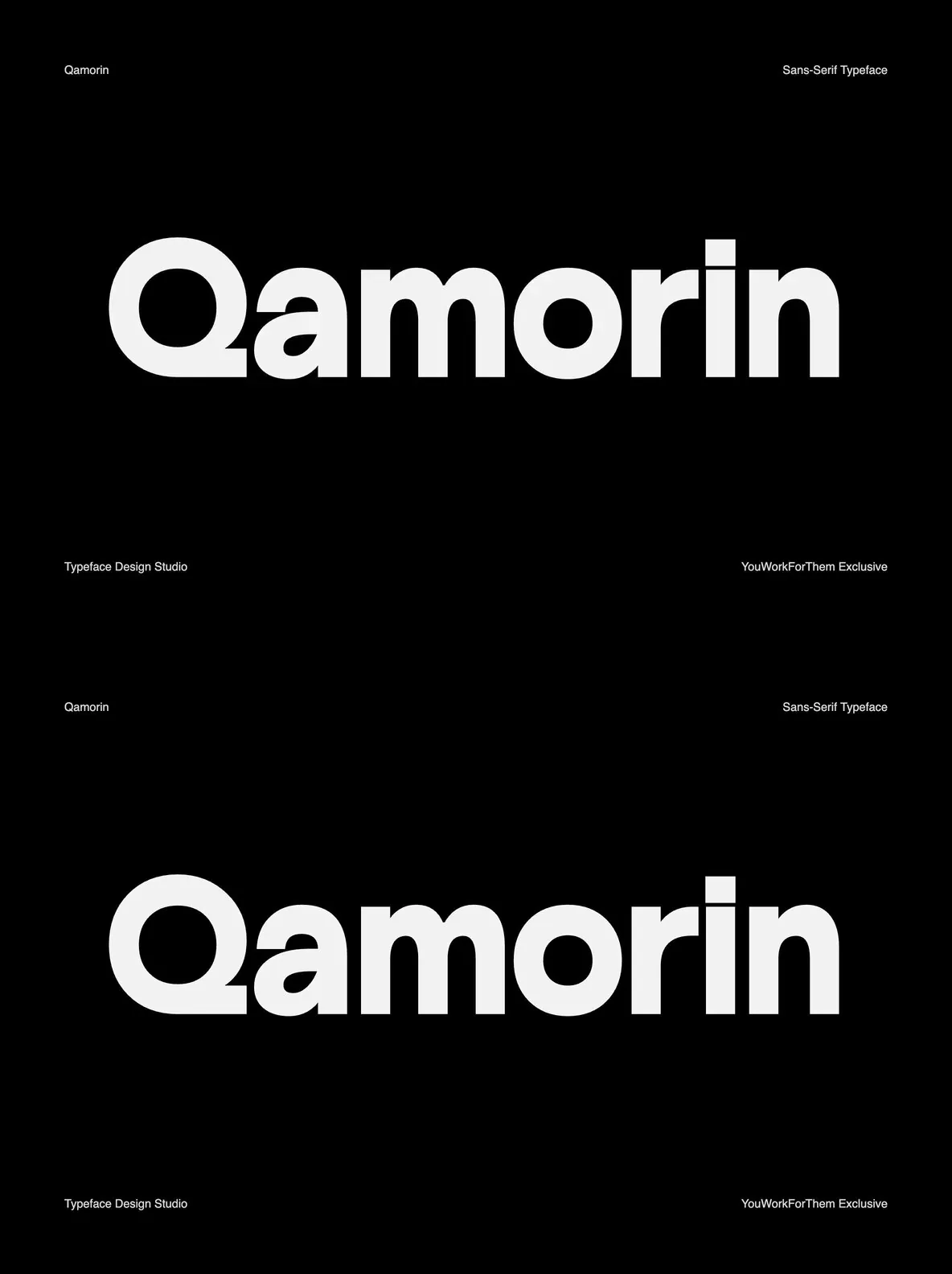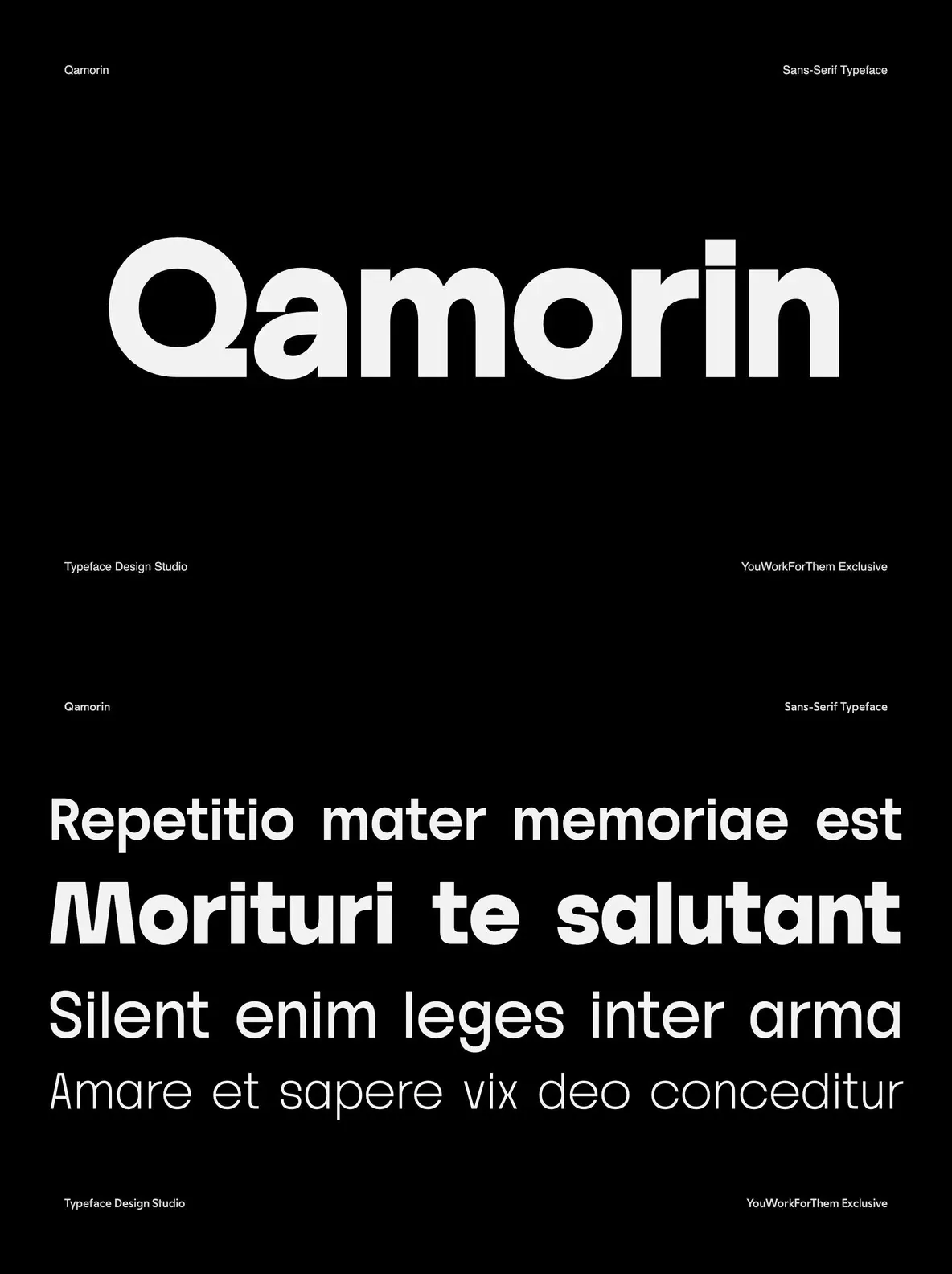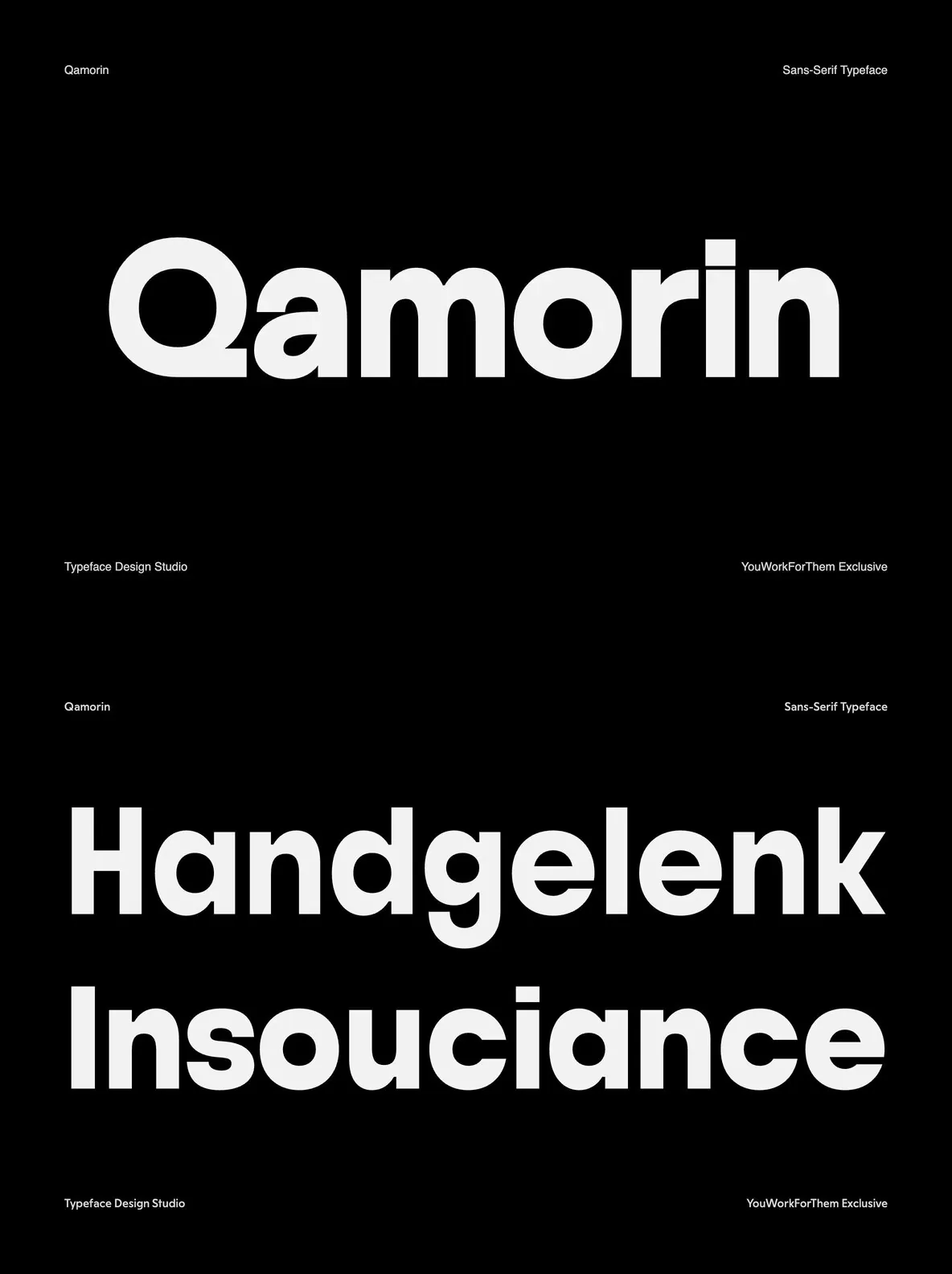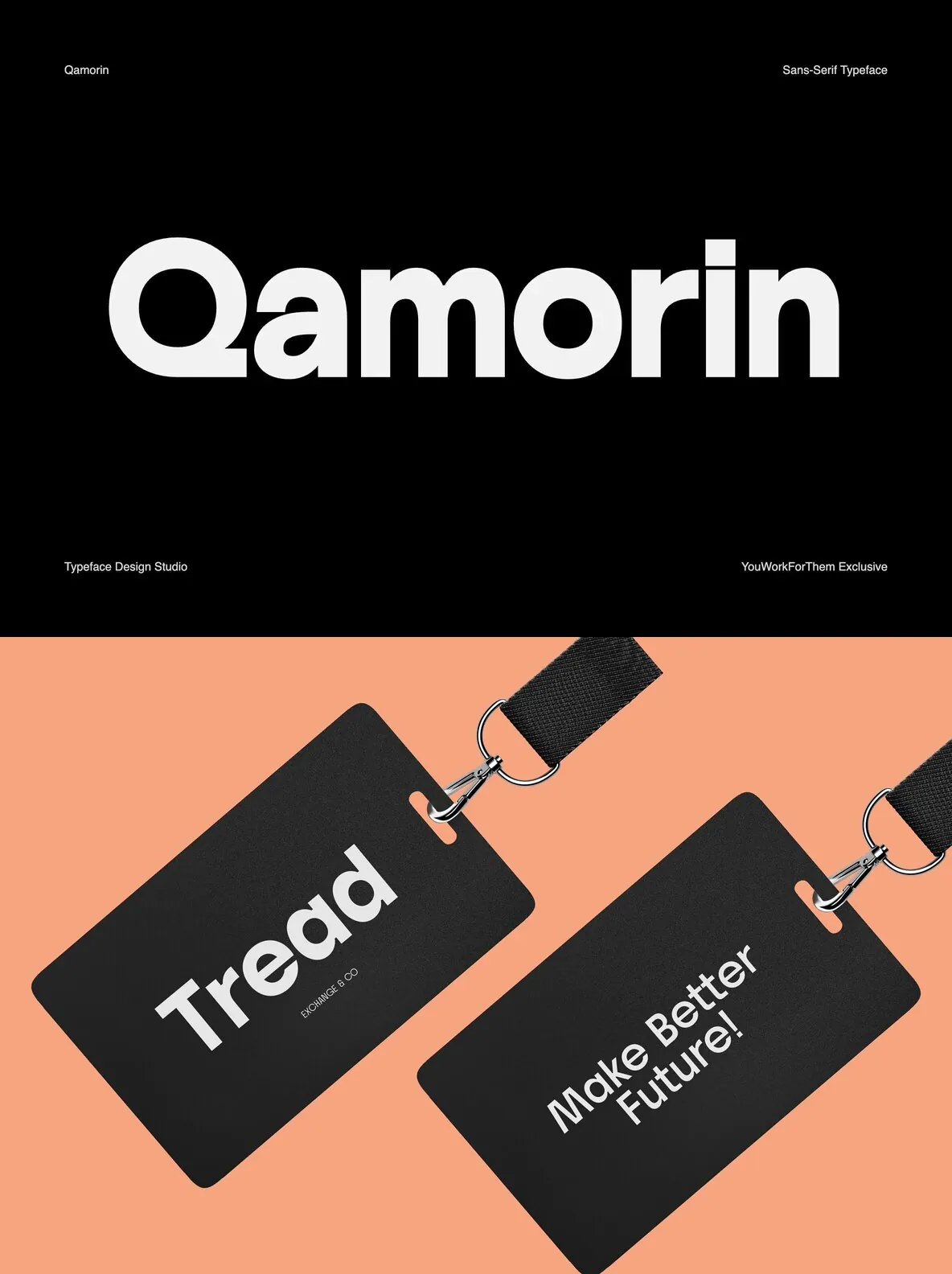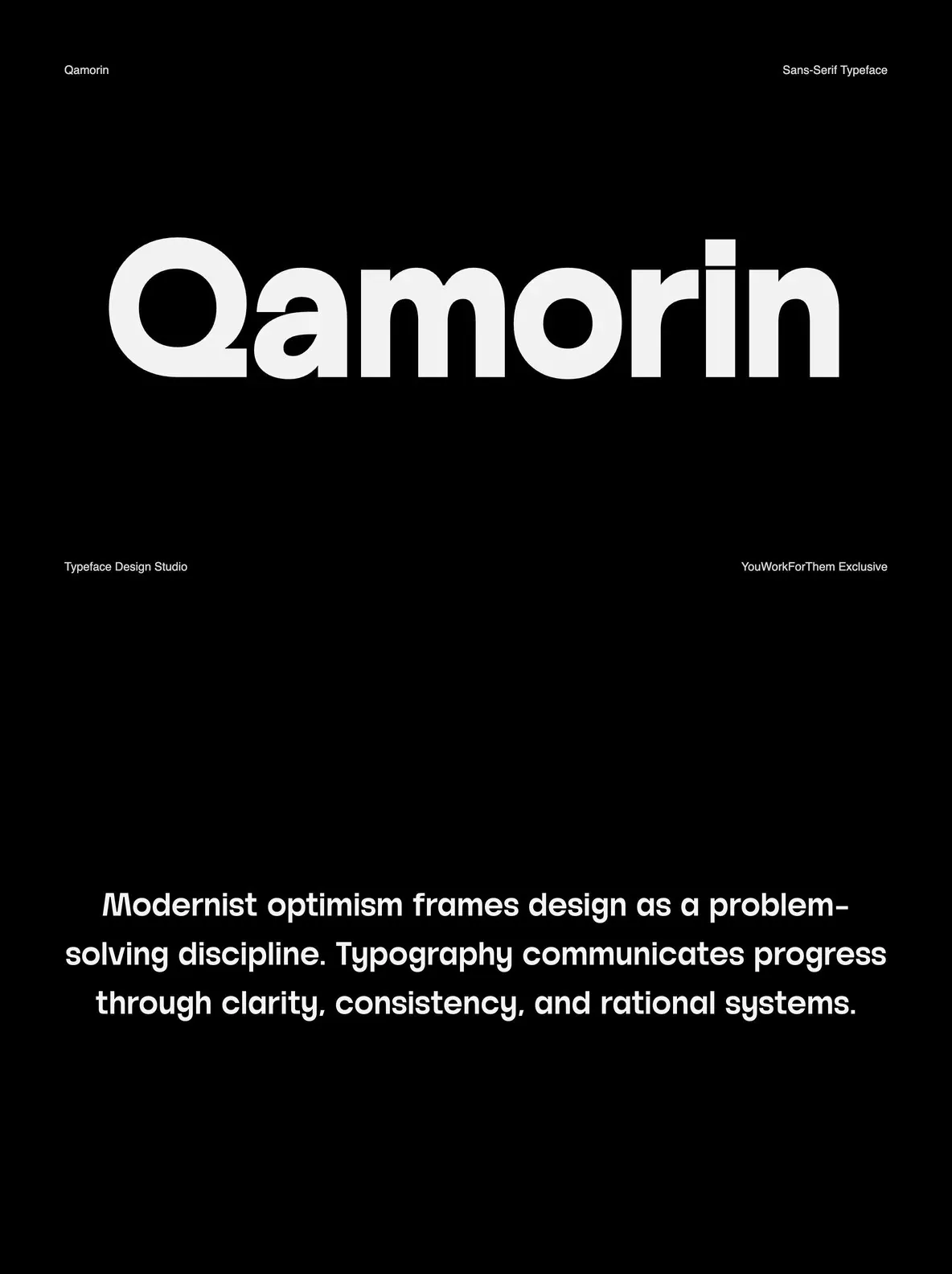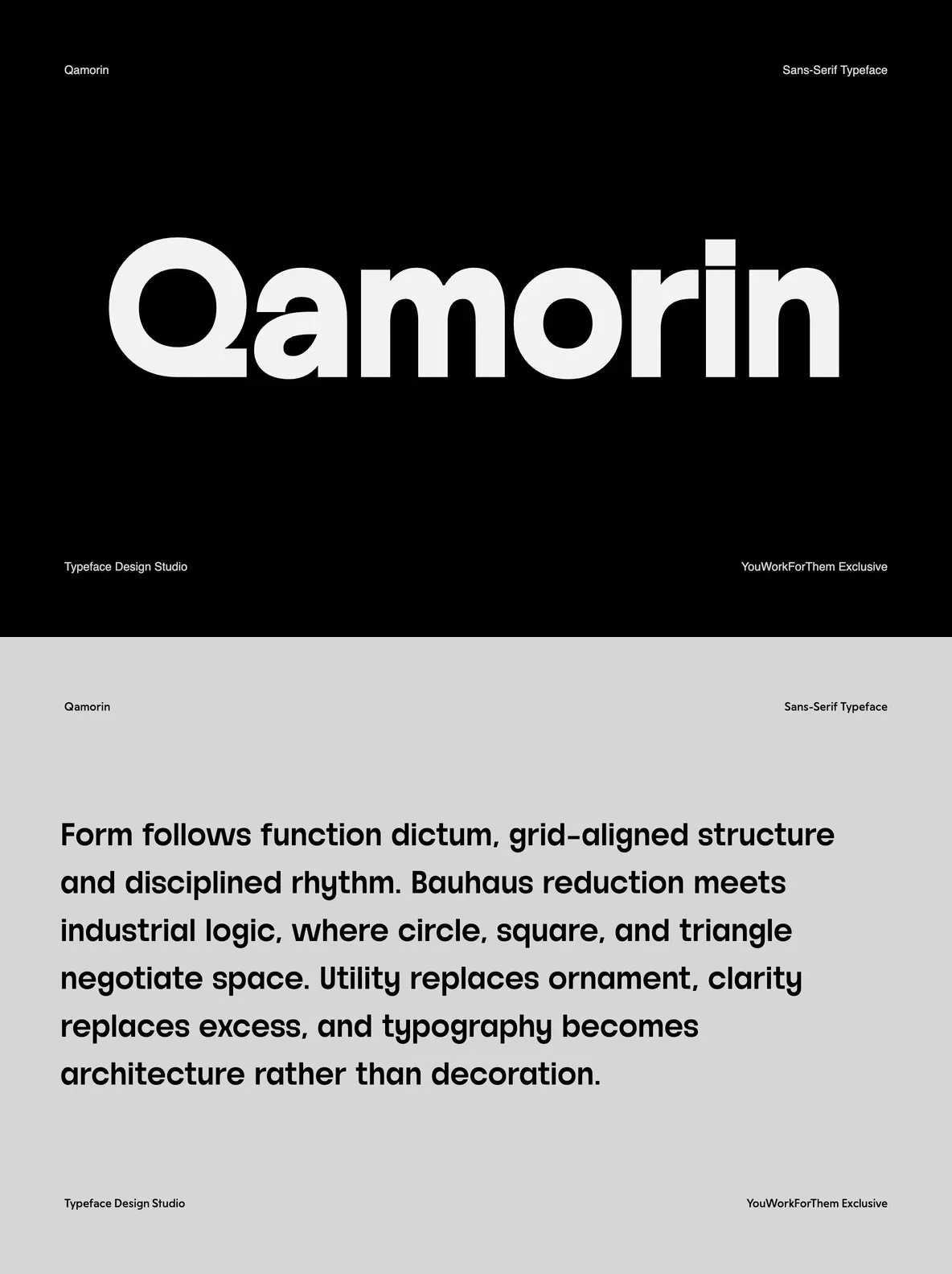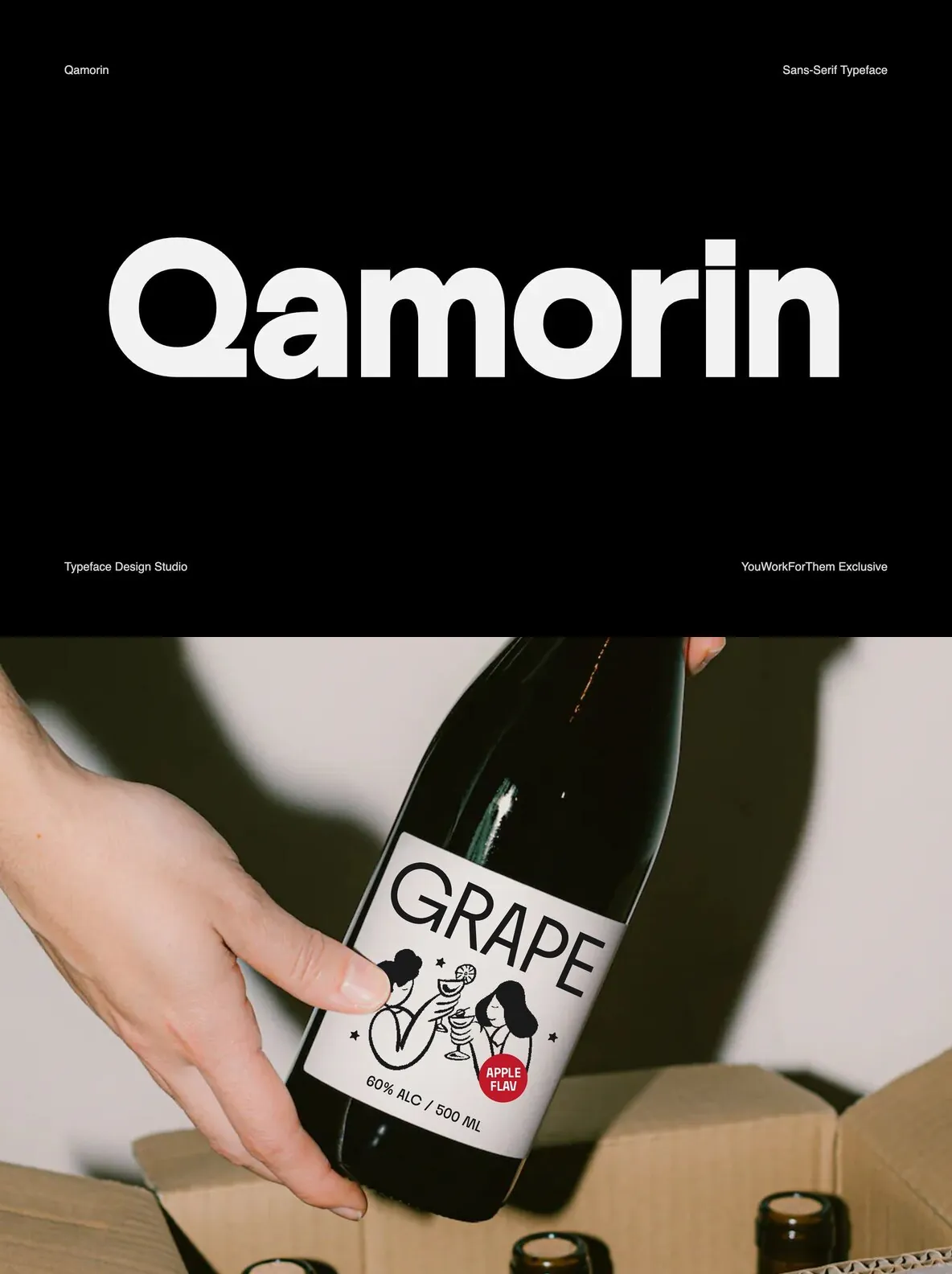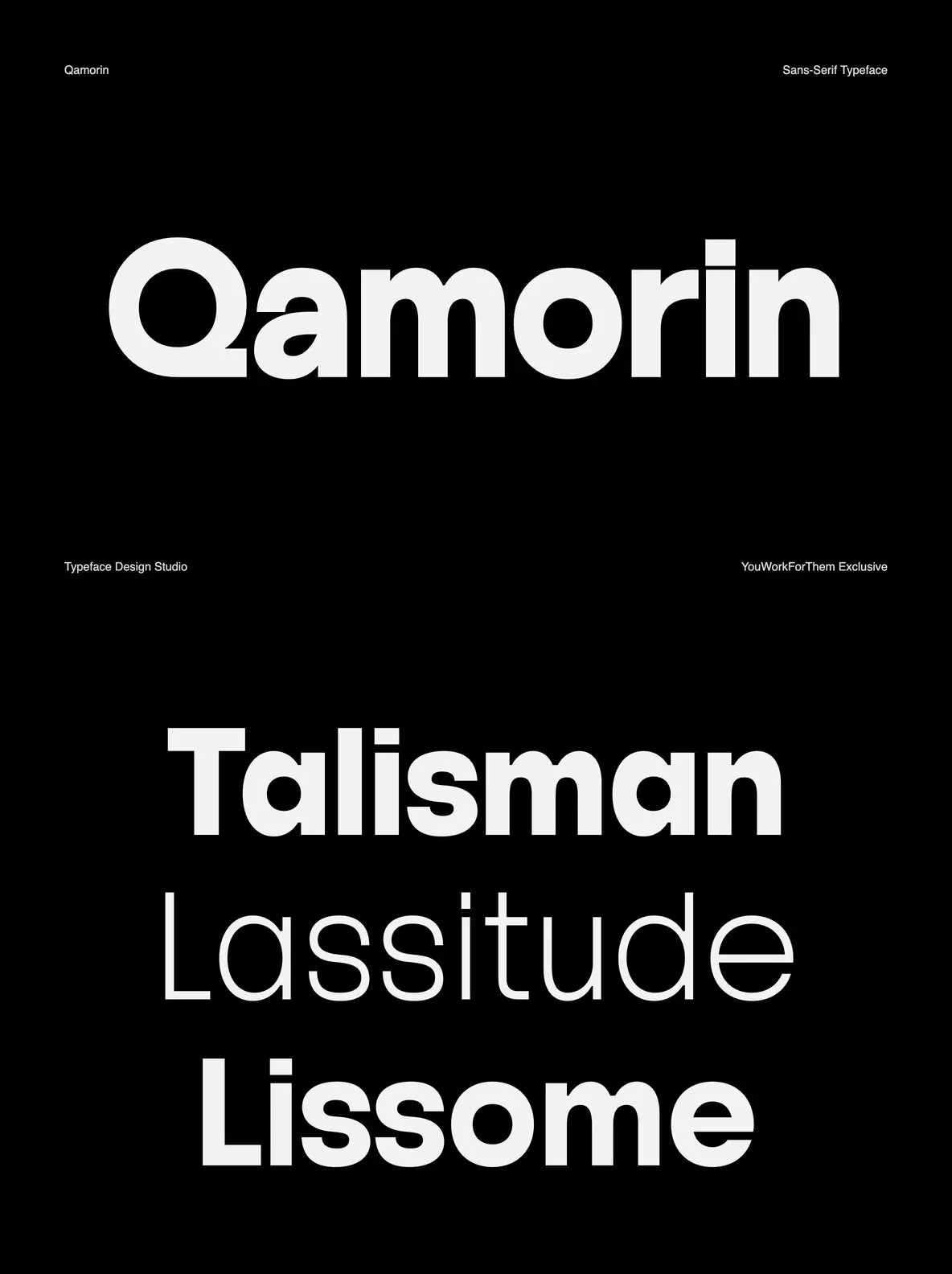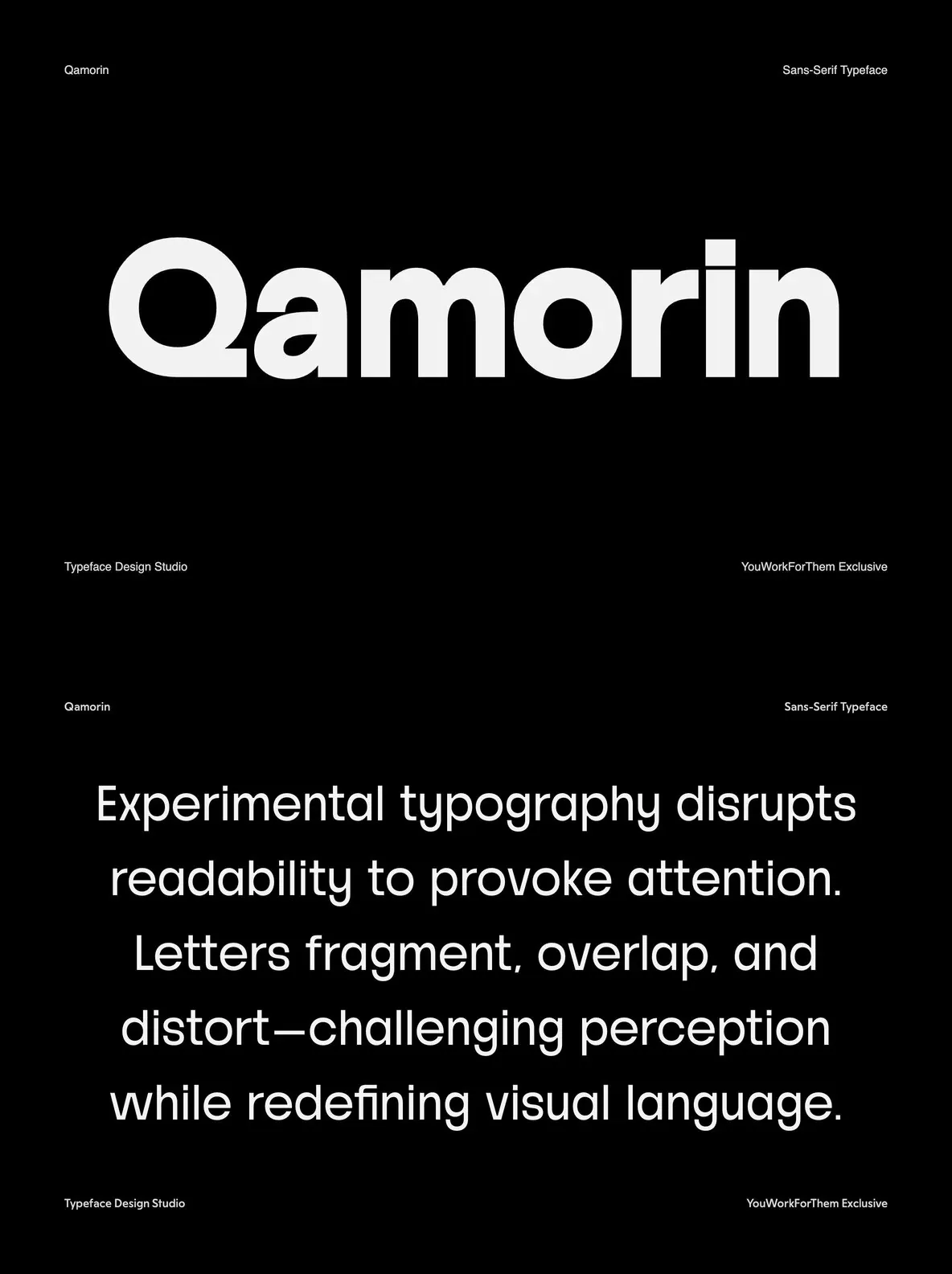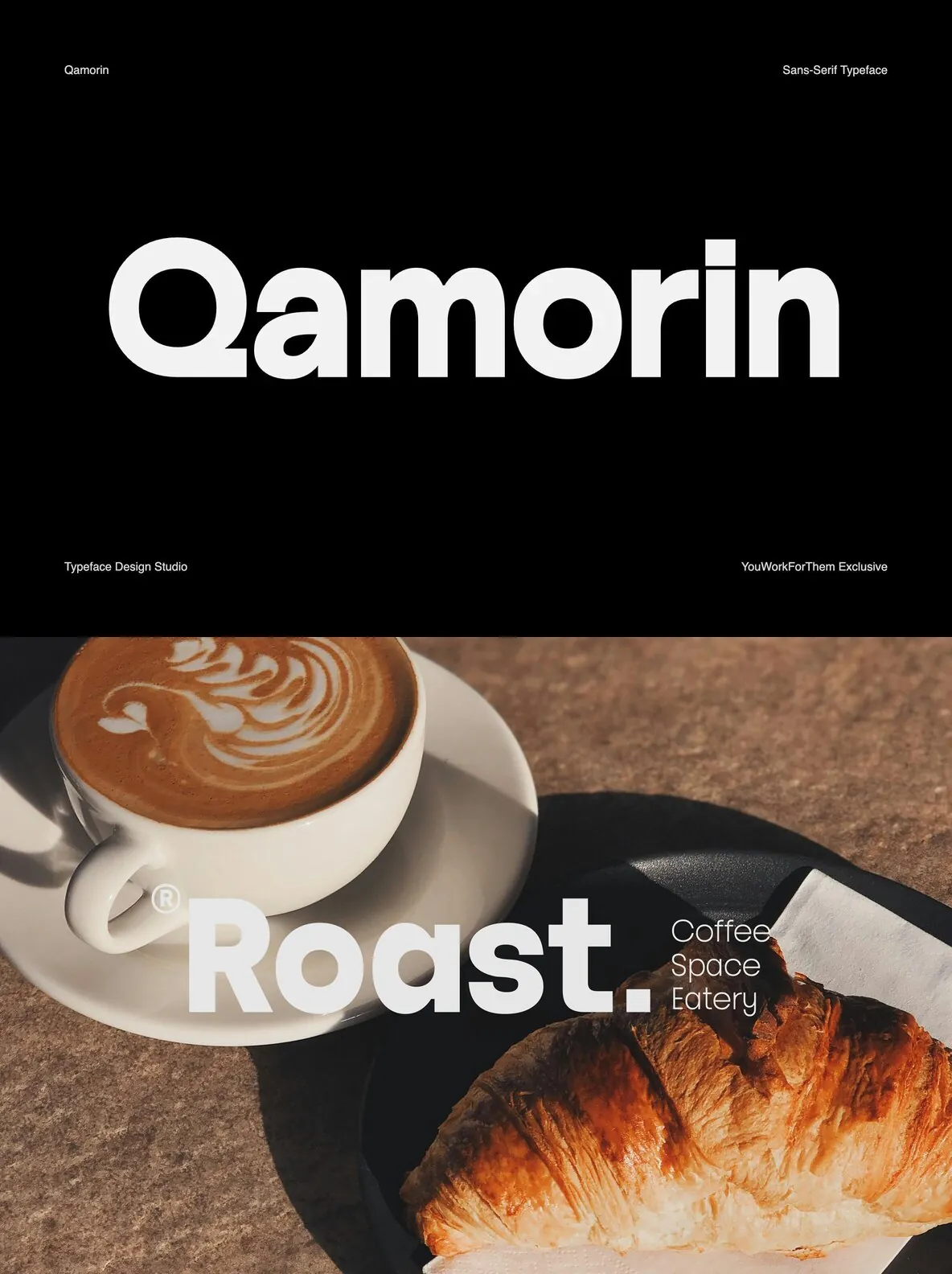
Qamorin Font
Qamorin Family Sans: Geometric Grotesk for Modern Design
Qamorin Family Sans stands at the intersection of geometric purity and contemporary practicality. As a geometric grotesk typeface, it offers a coherent sense of balance and clarity, making it well-suited for branding, editorial design, digital interfaces, and corporate identity projects. The family features seven weights, allowing for nuanced typography in applications ranging from bold headlines to subtle body text.
This typeface achieves versatility through clean lines and thoughtfully constructed proportions. Qamorin’s visual restraint produces a timeless aesthetic that supports readability and strong visual hierarchy, whether used on screen or in print. Its adaptability is a result of both its modern character and functional details.